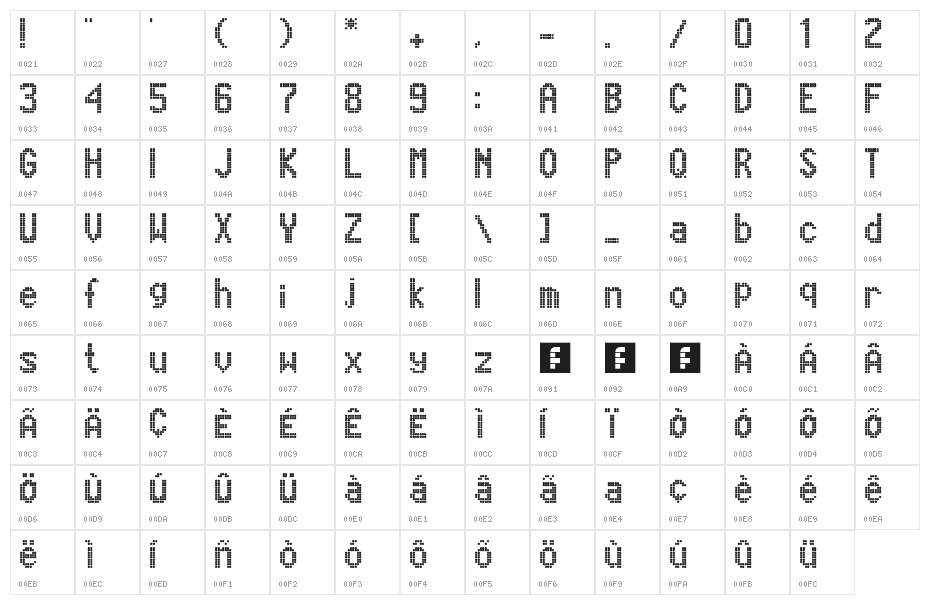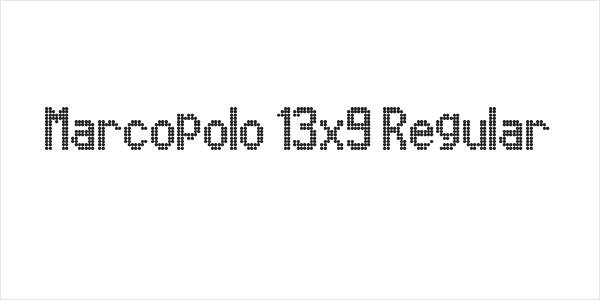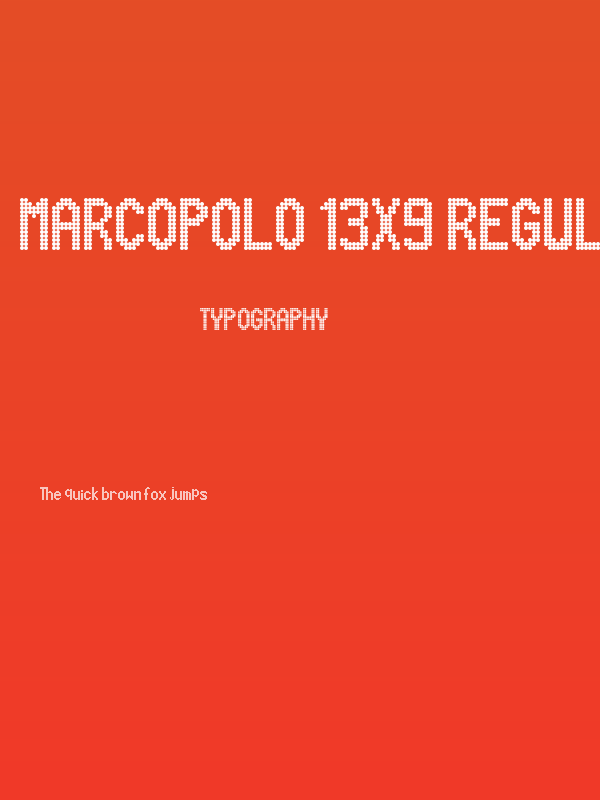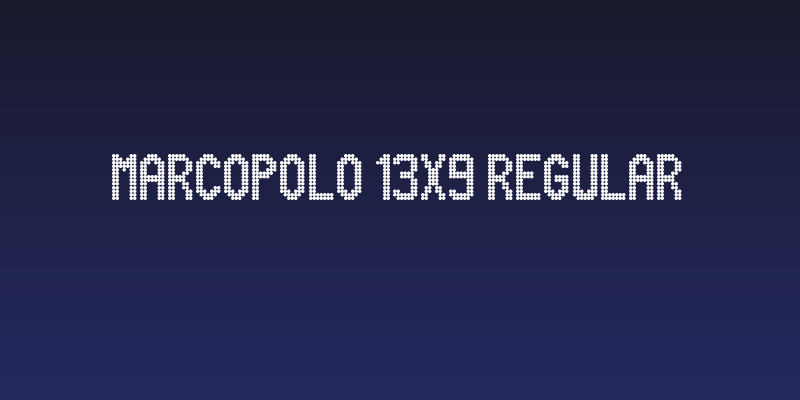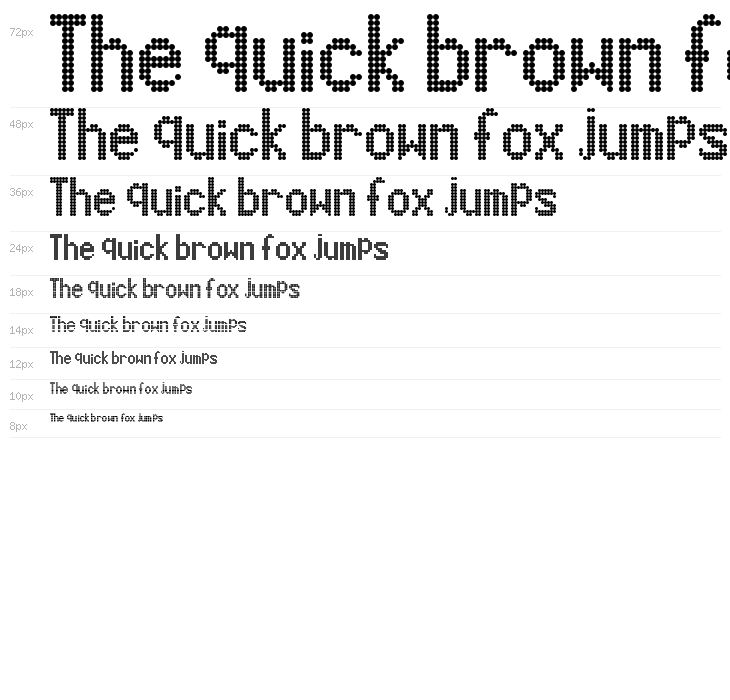
Marcopolo 13x9 Regular Font
Marcopolo 13x9 Regular Description
This font features a unique dot matrix design, where each character is composed of a grid of small, evenly spaced dots. The style is reminiscent of retro digital displays, giving it a distinct and playful appearance. The uppercase and lowercase letters maintain a consistent height, while the numerals and special characters follow the same dotted pattern, ensuring uniformity across all glyphs. This font's geometric and modular nature makes it stand out, offering a blend of modern digital aesthetics with a touch of nostalgia.
| Overall Style | Retro, Modern |
| Proposed Projects | Ideal for digital-themed projects, retro designs, tech-related branding, and creative posters. |